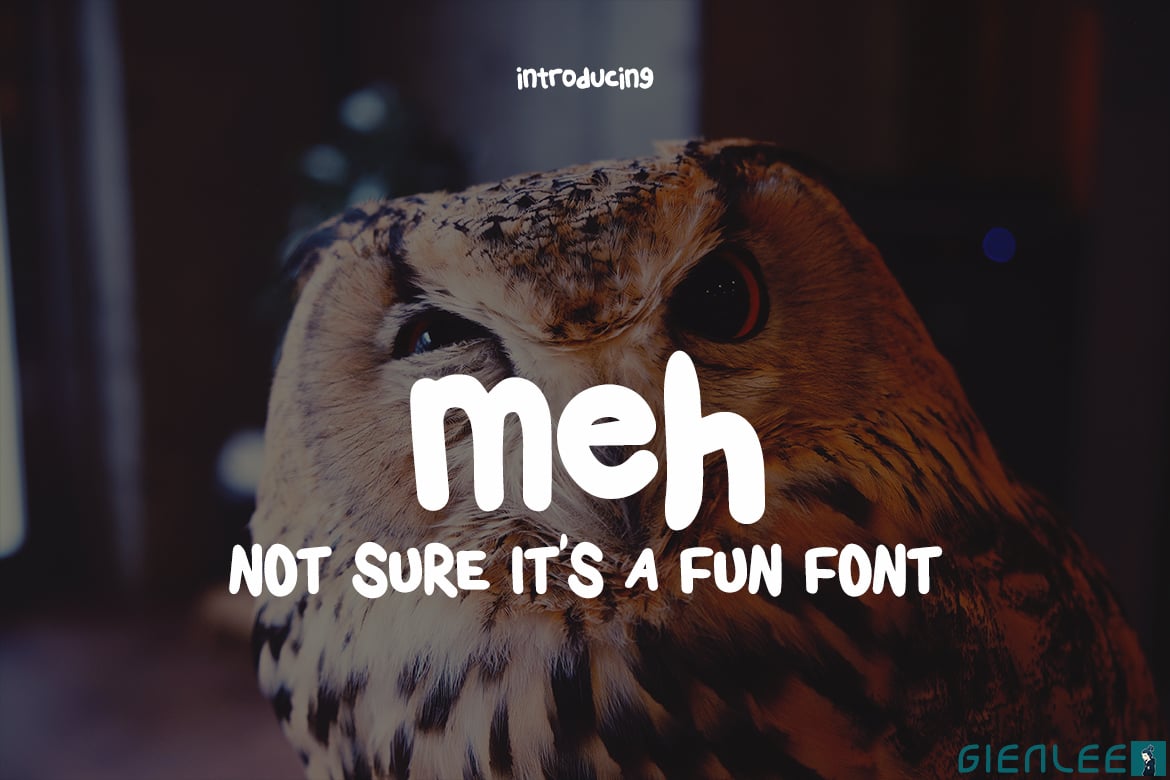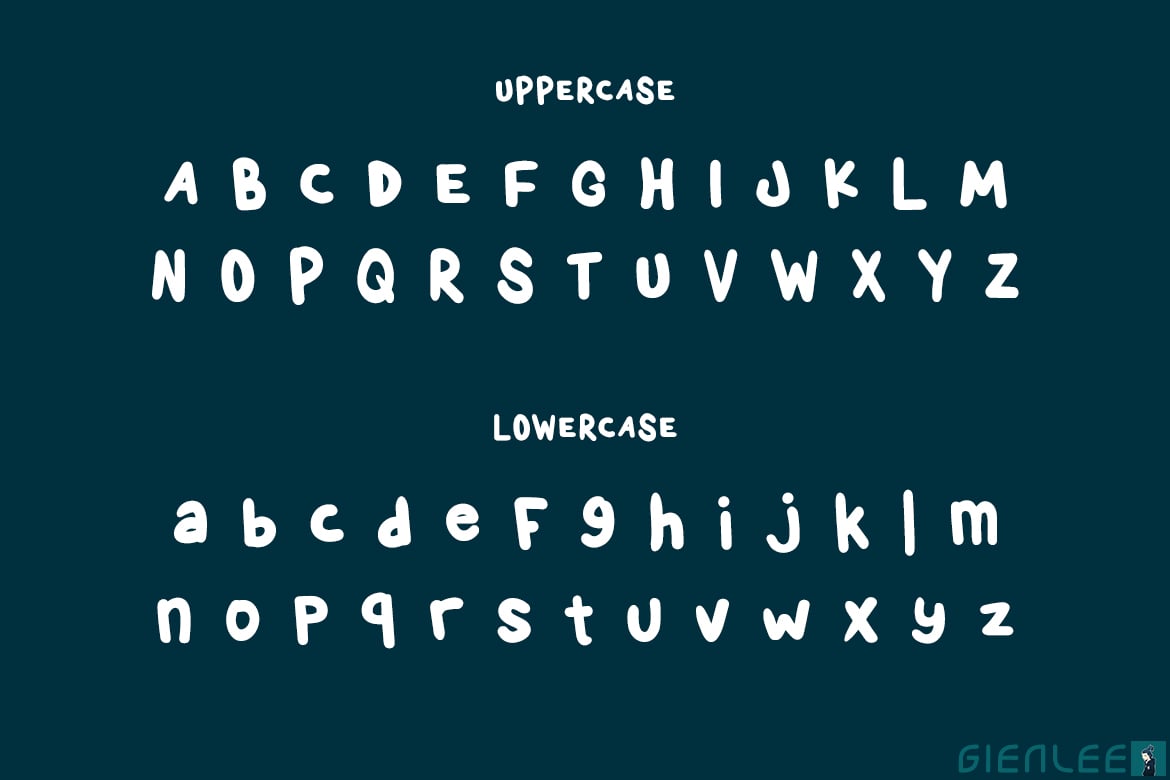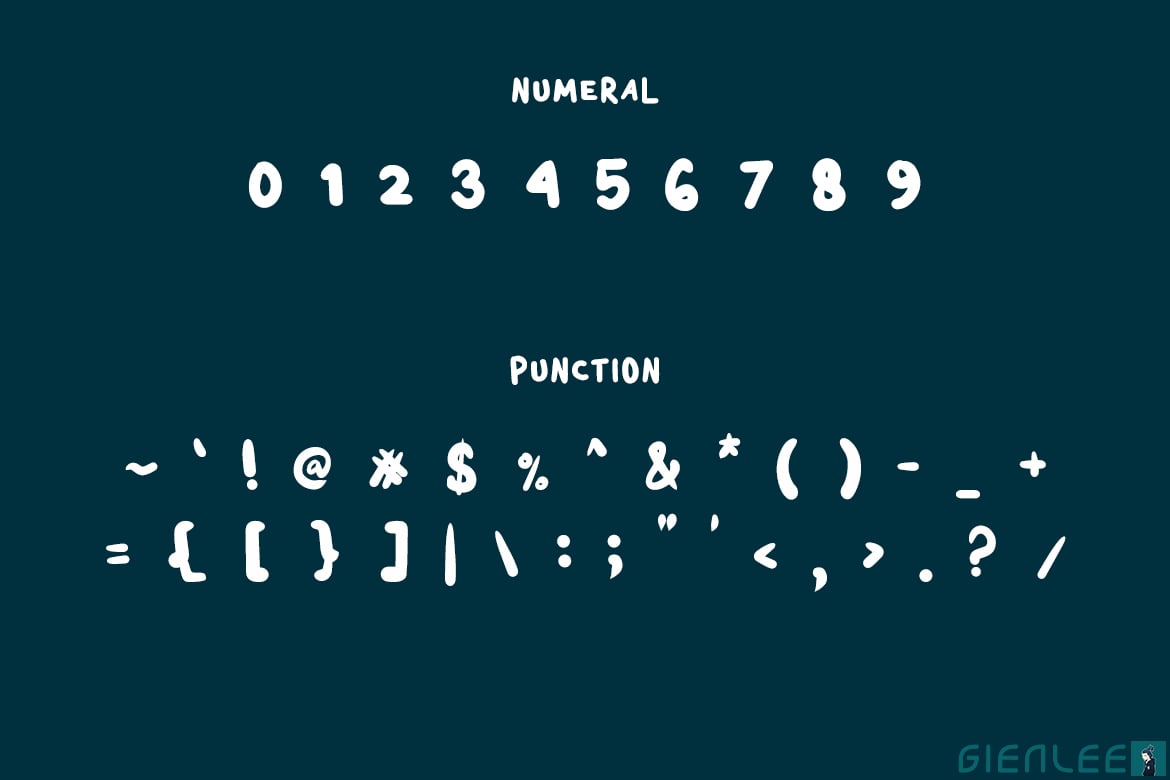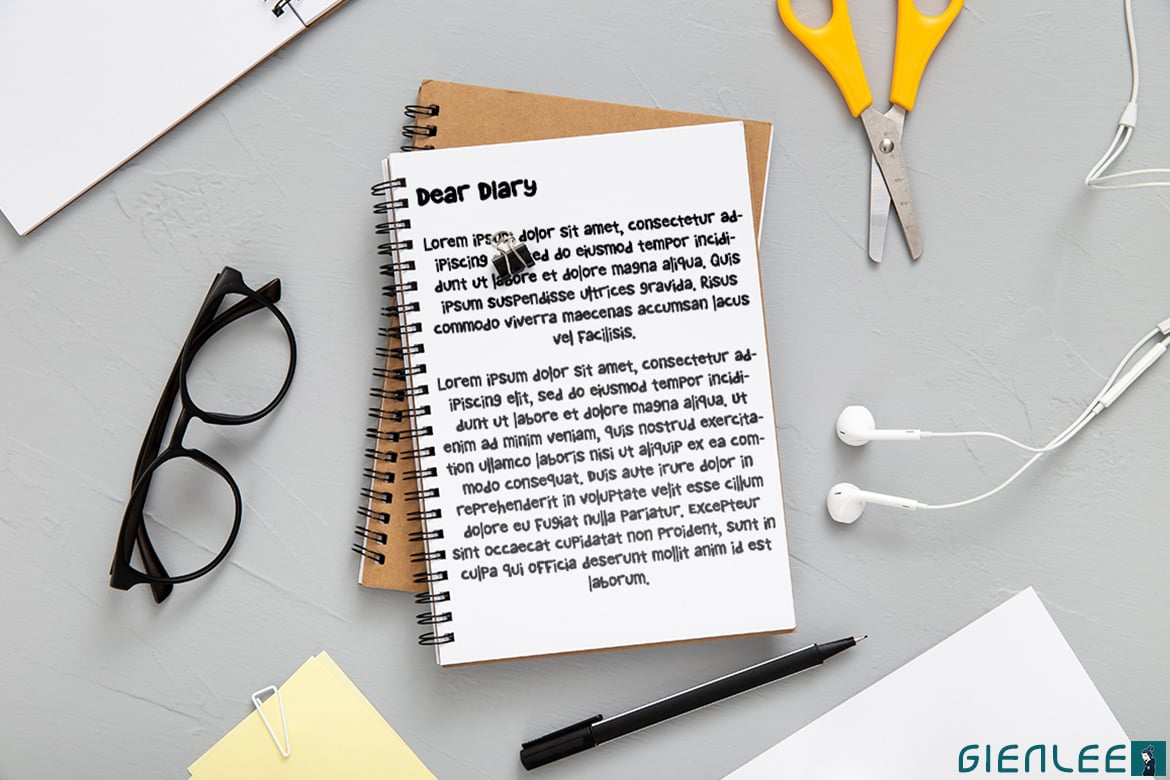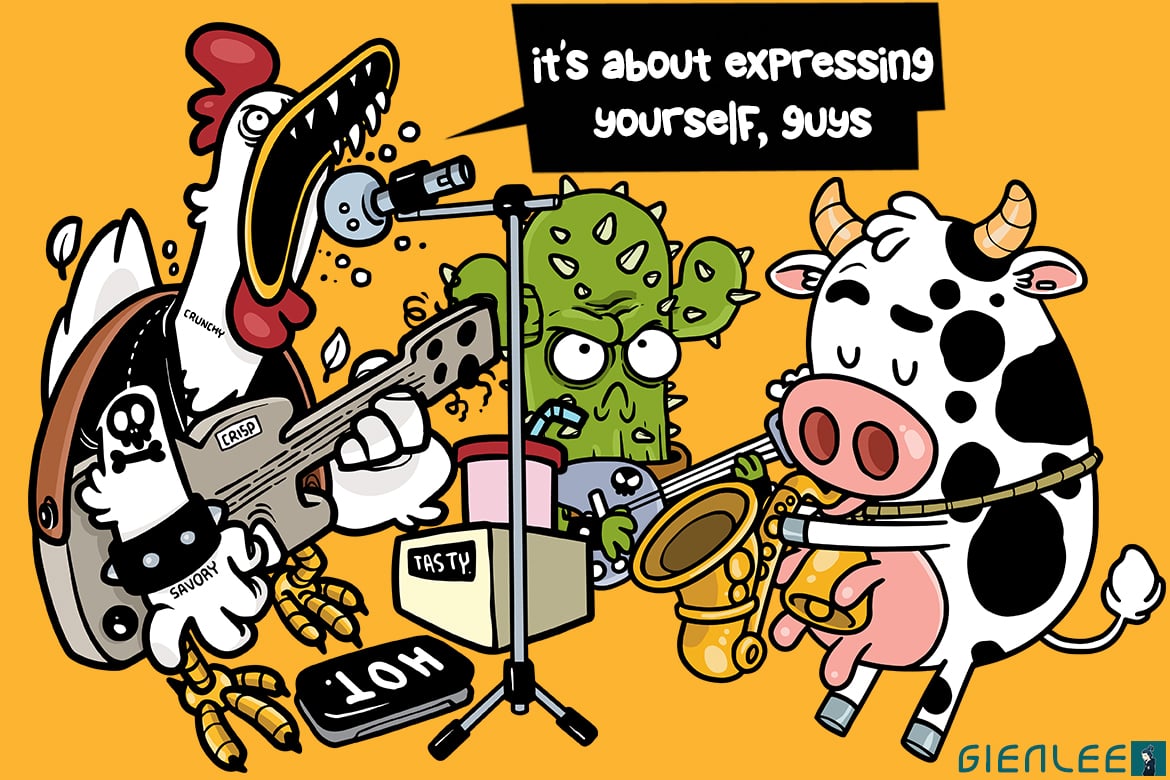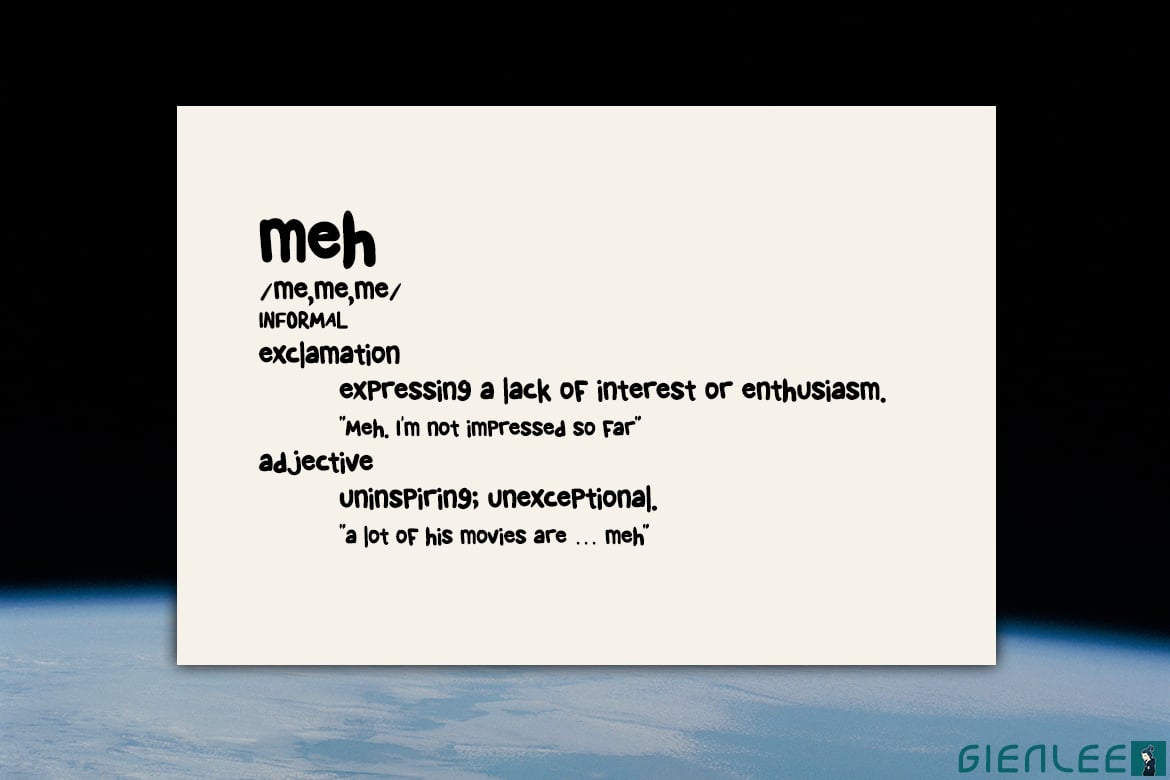
Meh – Fun Font
Meh is “not sure” a Fun Font. Commonly used for uhmm expressing or something?
I guess so..
- Standard Glyphs (Uppercase, Lowercase, Numeral & Punctions)